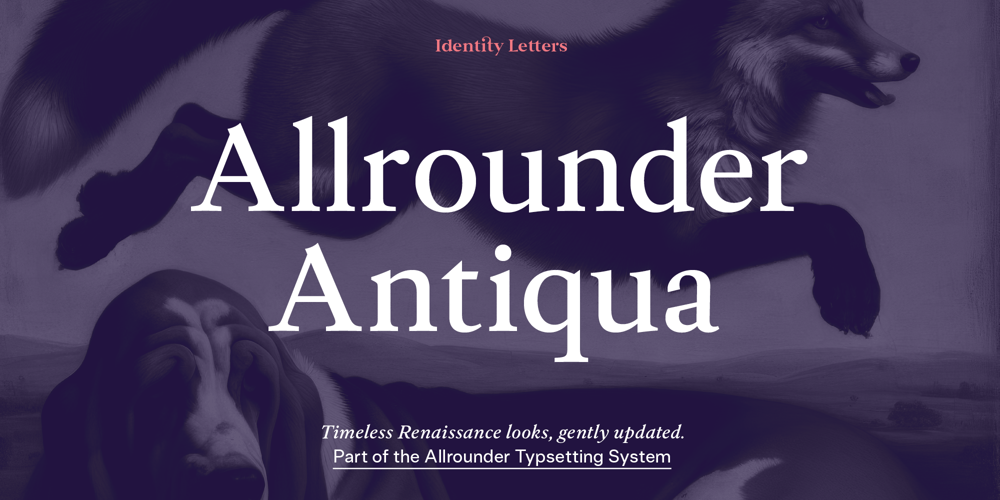
Allrounder Antiqua Font Family was designed by Moritz Kleinsorge and published by Identity Letters. Allrounder Antiqua contains 8 styles and family package options. Allrounder Antiqua is an old-style serif member of the Allrounder superfamily. A timeless typeface based on Renaissance models, it’s perfectly suitable for advanced book and editorial design as well as packaging and branding.Its main purpose is to set flawless body copy—but its refined shapes work fantastically in display applications, too.This classy serif typeface comes in four weights with corresponding true italics and plenty of OpenType features. Its vertical metrics and texture match those of the other Allrounder fonts: Combining fonts was never easier than with the Allrounder type system.(i) Allrounder Antiqua was heavily updated in 2024. v2.0 is not compatible with older versions.